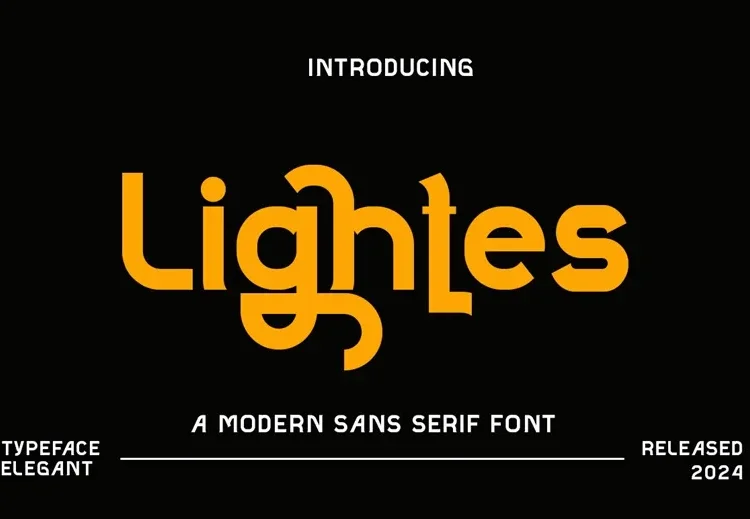
Lightes Font
Lightes is a sleek and contemporary sans serif typeface, featuring clean, straight lines with subtle curves at the corners. Its design strikes a balance between smoothness and boldness, offering a modern, yet slightly harsh appearance. The letter distribution is carefully crafted to ensure an open and legible structure, making it ideal for both lengthy and short texts.
This versatile font works well for website content, articles, official documents, and more. Additionally, Lightes is perfect for minimalist designs such as posters, logos, and presentations that require a modern and delicate aesthetic.